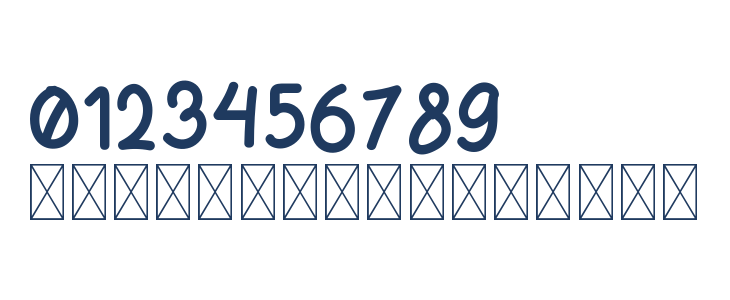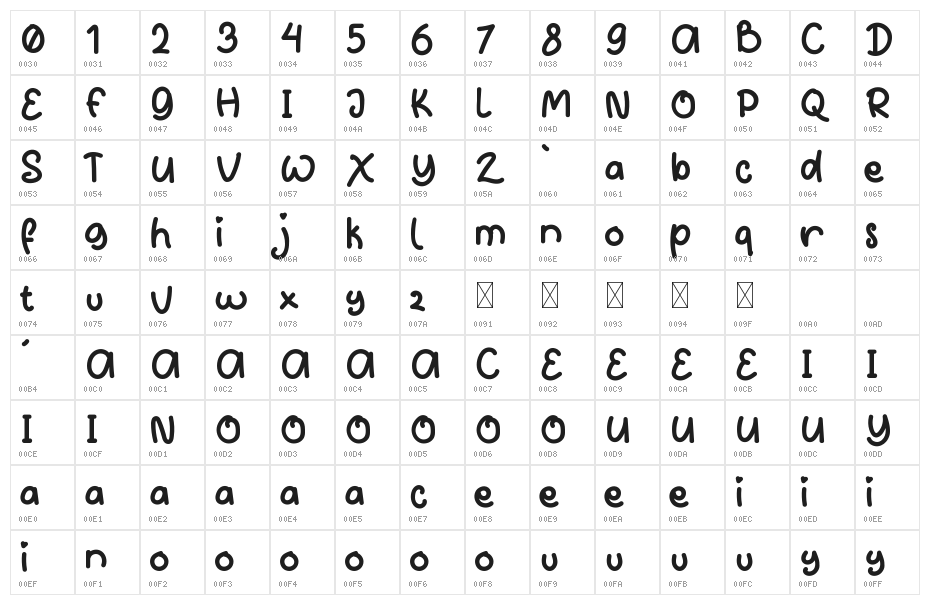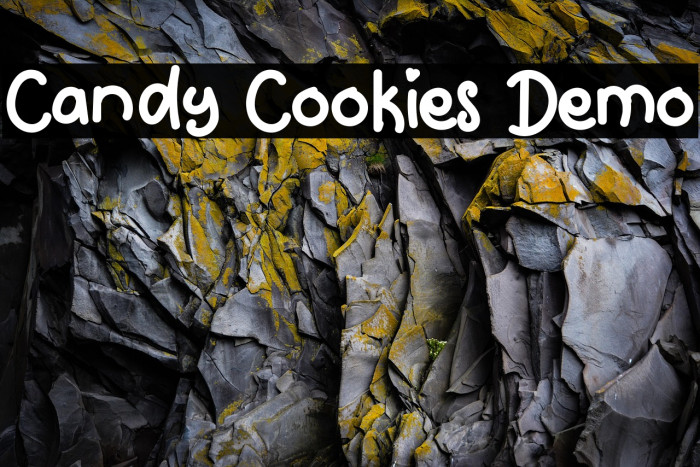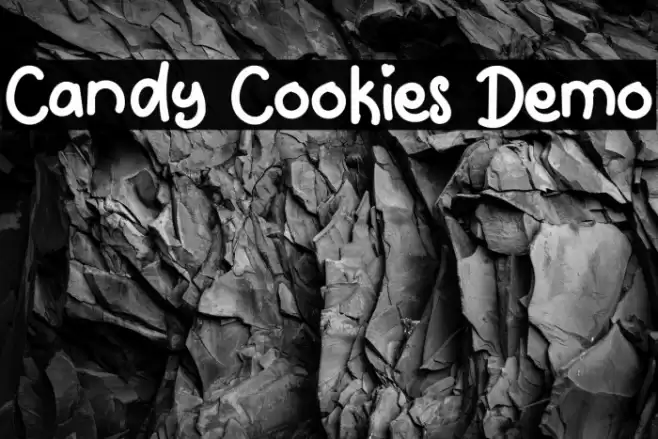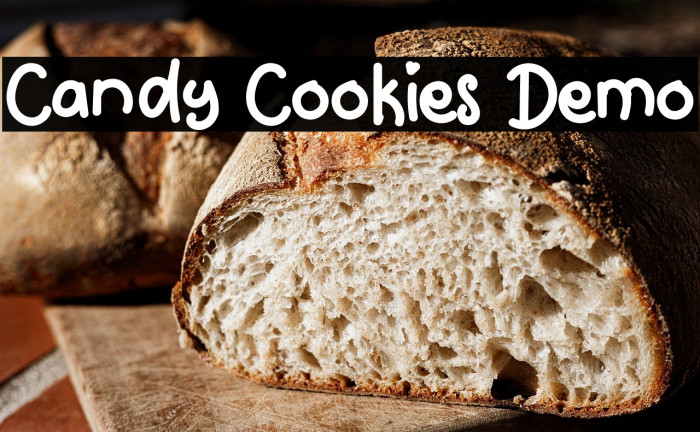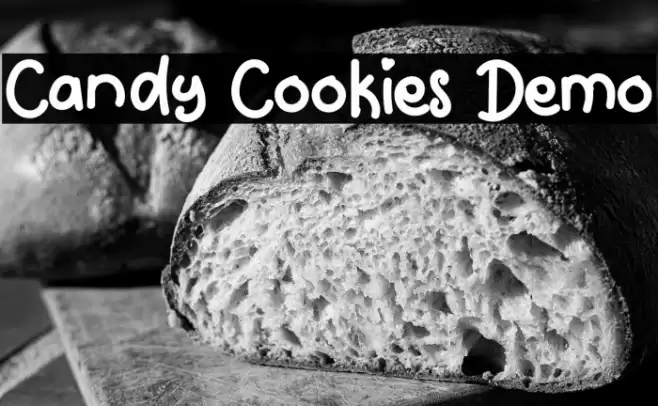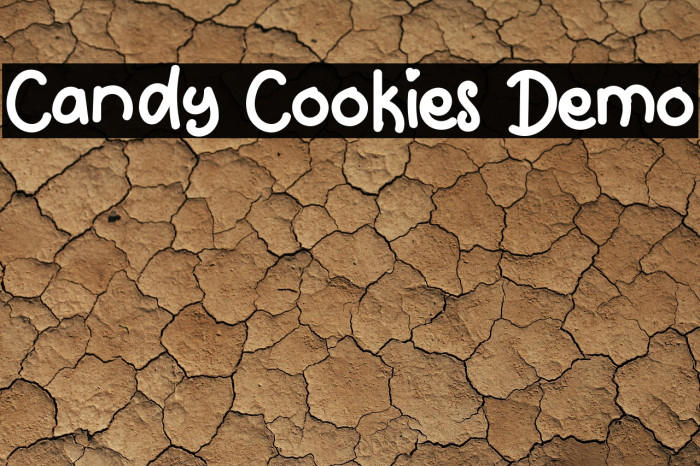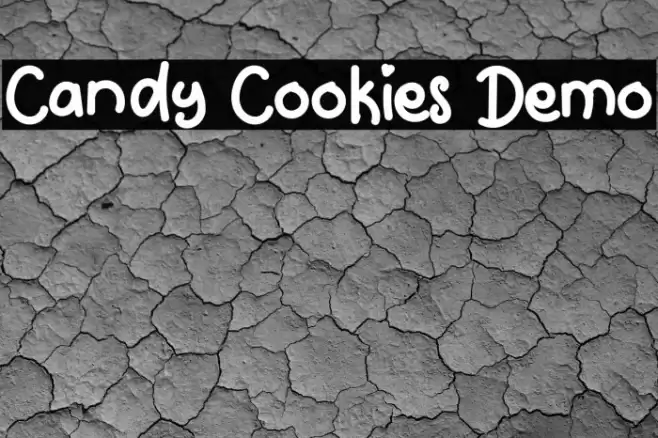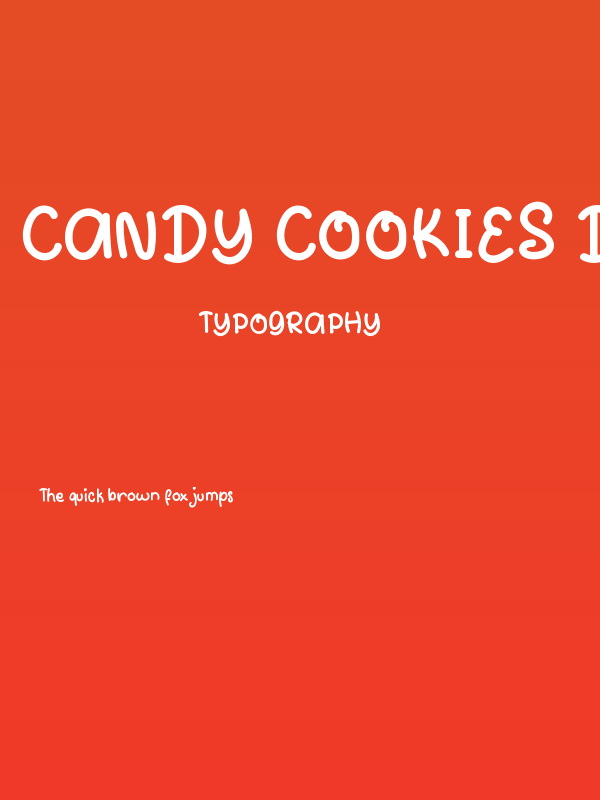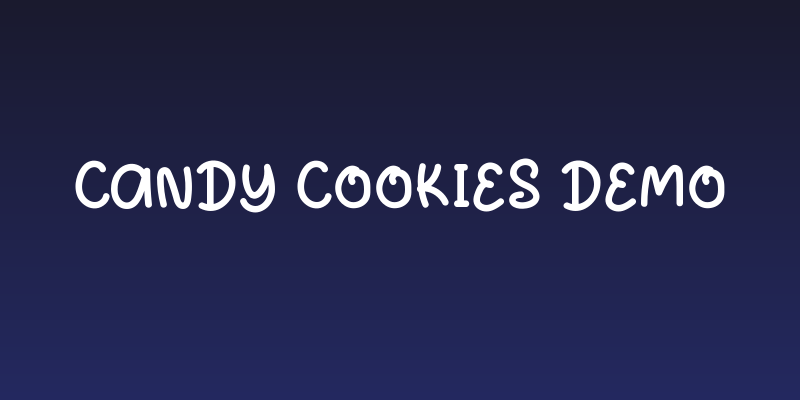
Candy Cookies Demo Font
Candy Cookies Demo Description
This playful and whimsical font features rounded, bubbly characters that convey a sense of fun and lightheartedness. The letters have a hand-drawn quality, with slightly irregular shapes that add to their charm. The strokes are consistent in width, giving the font a uniform appearance while maintaining a casual, friendly vibe. The numbers and special characters are designed to match the playful style of the alphabet, making it suitable for a variety of creative projects. This font is perfect for designs that aim to be approachable and engaging, such as children's books, party invitations, or playful branding.
| Proposed Projects | Ideal for children's books, party invitations, playful branding, and creative projects. |